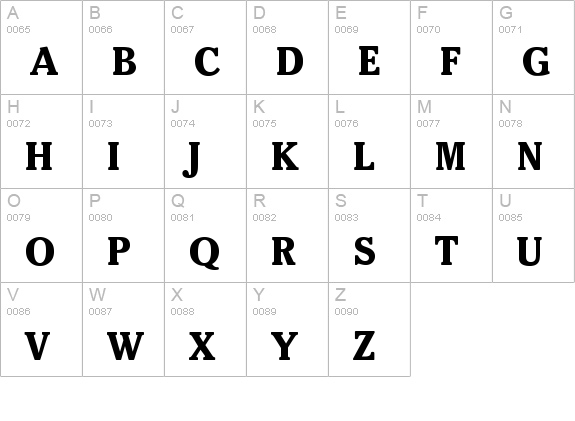
Sorbonne R Font Details
Sorbonne R font is a stunning typeface that exudes elegance and sophistication. With its sleek and modern design, this font is perfect for adding a touch of class to any project. Whether you're designing a logo, creating a website, or crafting a stylish invitation, Sorbonne R font will instantly elevate your design to new heights. One of the best things about Sorbonne R font is that it is completely free. Yes, you heard that right - this incredible font is freely available to download at FontsMarket.com. This means that you can access this premium quality font without having to spend a dime. Not only is Sorbonne R font free, but it also offers a wide range of features and options. With multiple weights and styles to choose from, you can easily customize the look and feel of your text to perfectly match your design vision. Whether you prefer a bold and impactful style or a more subtle and refined look, Sorbonne R font has you covered. The clean lines and exquisite letterforms of Sorbonne R font make it incredibly versatile. It is equally at home in corporate settings, on fashion websites, or in high-end print materials. Its timeless design ensures that it will remain a classic choice for years to come. Downloading Sorbonne R font from FontsMarket.com is quick and easy. Simply visit the website, search for Sorbonne R font, and click the download button. Within seconds, you'll have this incredible font at your fingertips, ready to take your designs to the next level. So why wait? Start using Sorbonne R font today and experience the beauty and versatility of this amazing typeface. Don't miss out on this opportunity to enhance your designs with a high-quality font that is free and readily available at FontsMarket.com.